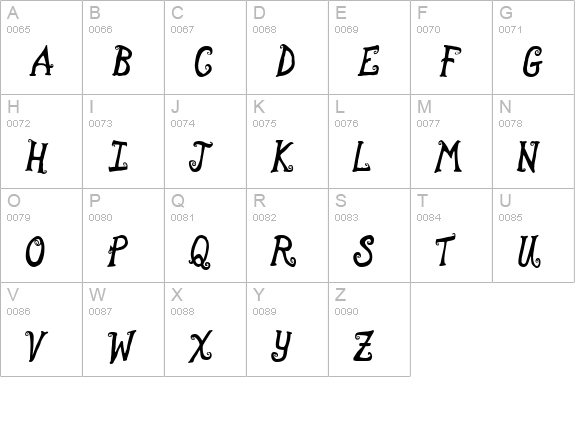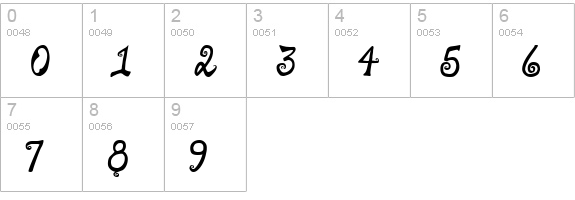
moonpie a la monde Font Details
Moonpie à la Monde is a whimsical and charming display font that exudes a playful and friendly vibe. With its unique and quirky letterforms, this font adds a touch of fun and creativity to any design project. Whether you're working on a poster, logo, or greeting card, Moonpie à la Monde is sure to make your text stand out. The best part? Moonpie à la Monde is available for free download at FontsMarket.com. This means you can easily add this delightful font to your collection without breaking the bank. So go ahead and unleash your creativity with Moonpie à la Monde, the perfect choice for adding a touch of whimsy to your designs.